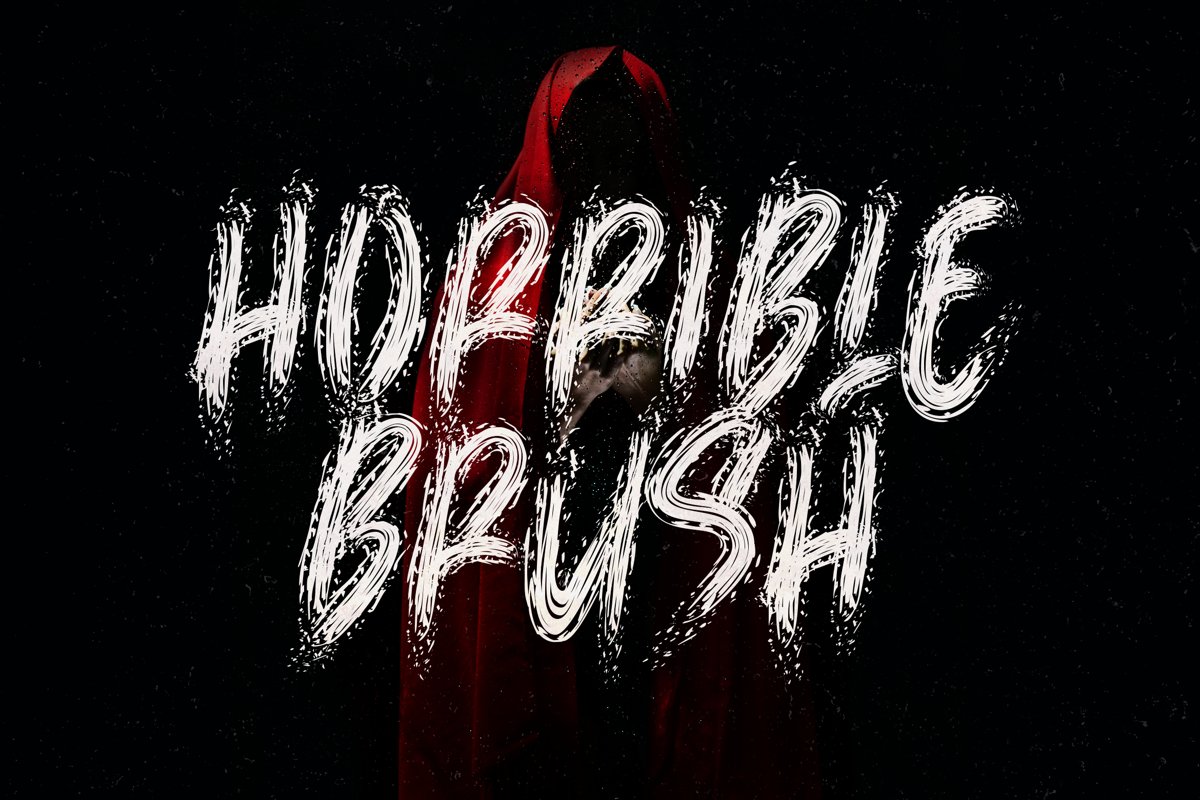
Horrible Brush
Horrible Brush - a creepy display font with messy brush texture that very recommended for horror and halloween projects. It's all caps with numeral, punctuation, and also multilingual support.